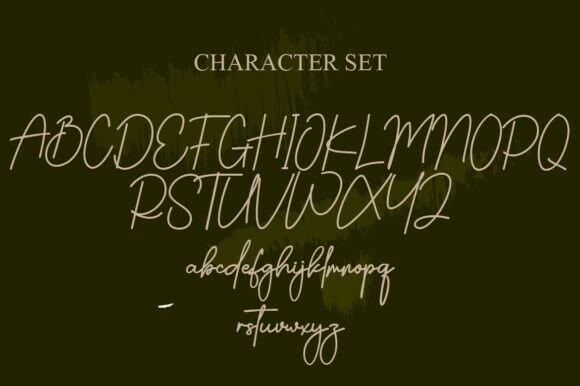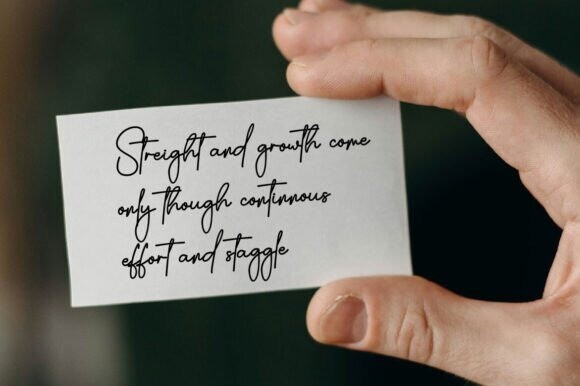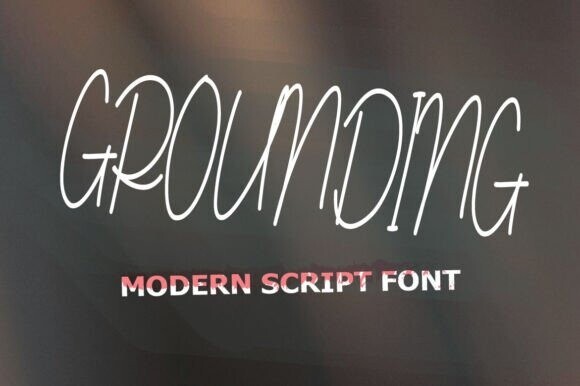
Grounding Font
Grounding font—a masterfully designed monoline typography that marries elegance with personality in your design creations. Characterized by a distinct flowing handwritten appearance, Grounding font captivates with its sleek, uniform lines—giving it an undeniable charm for both corporate and casual design endeavors. Uncover the magic of its fluid letter junctions that allow your text to seamlessly weave together, revealing an authentic, uninterrupted flow.
Grounding font is your loyal companion, adding a warm, stylish flair to everything from exclusive invitations and brand aesthetics to captivating social media graphics. Grounding comes packaged as .ttf and .otf file formats inclusive of punctuation, numeration, and stylish alternative options. Enhanced with multi-lingual support, it crosses language barriers to bring your design vision to life.